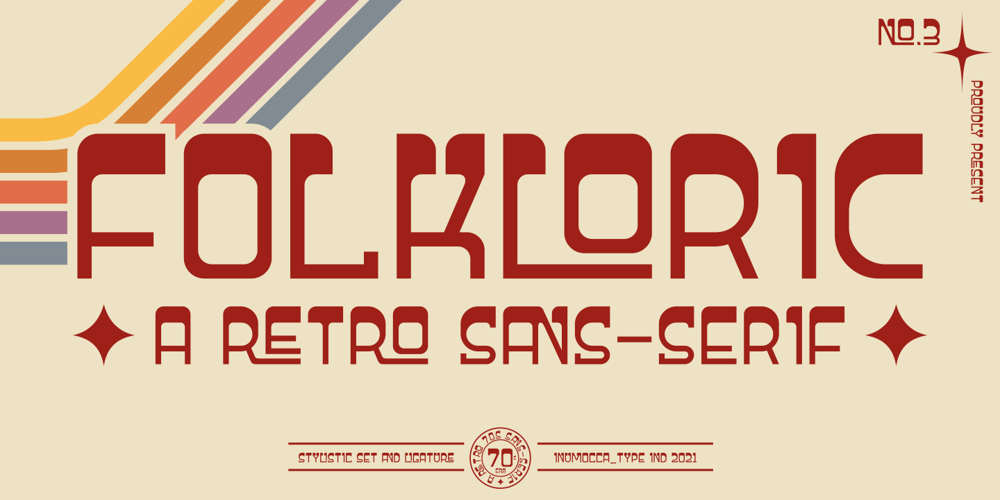
Folkloric
Folkloric font
Folkloric Font Family was designed by Inu Mocca and published by Inumocca. Folkloric contains 1 styles and family package options. FOLKLORIC is A Retro Sans-Serif StyleThey were particularly common in the 70s, this is a great choice for expressing a summer.The Typeface comes with Stylistic Set and Ligature CombinationsExellent typeface to use for covering your Project, like Branding, Movie Title, Headline Letter, Bookcover or Book Content, Magazine cover, Poster, Quotes Lettering, Logos, and more your project design.- Unique glyphs- Multilingual Characters Support- UPPERCASE- Lowercase- Numeric- Symbol- Punctuation Character- Ligature- Stylistic Setinumocca type